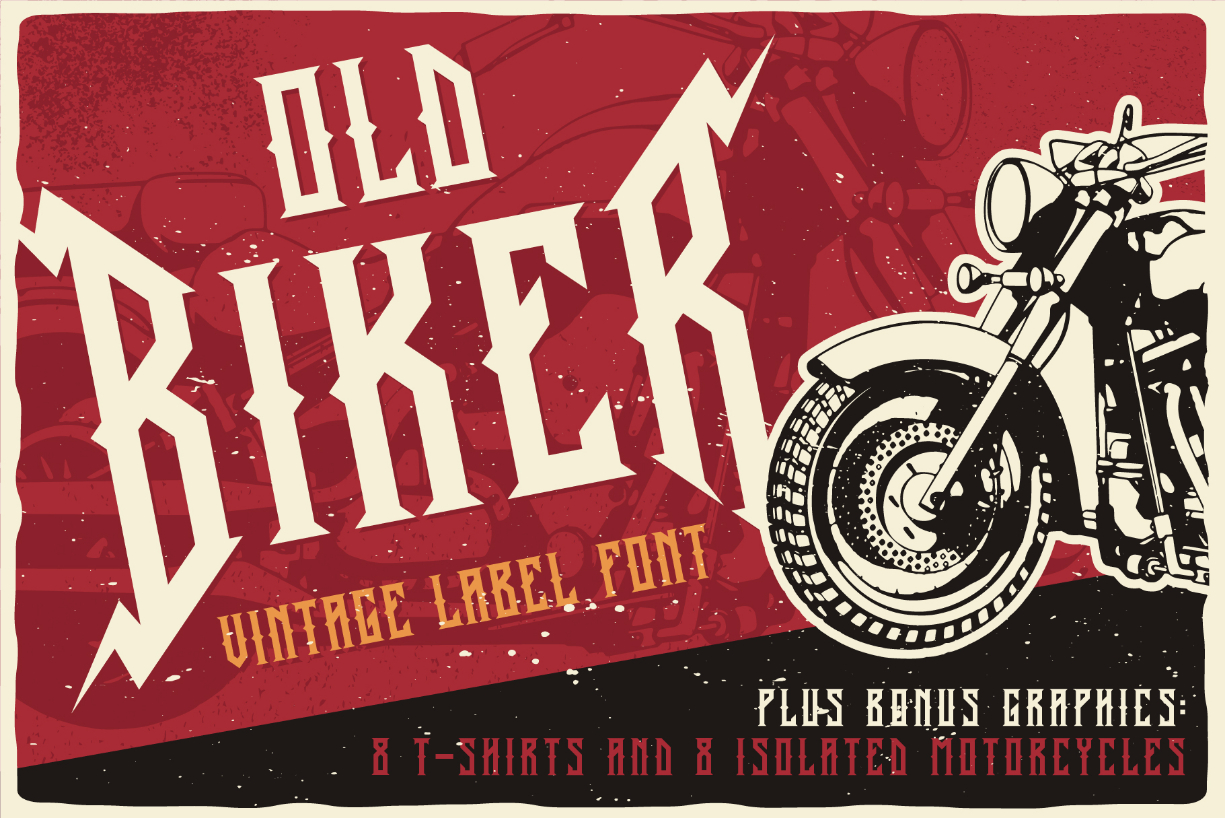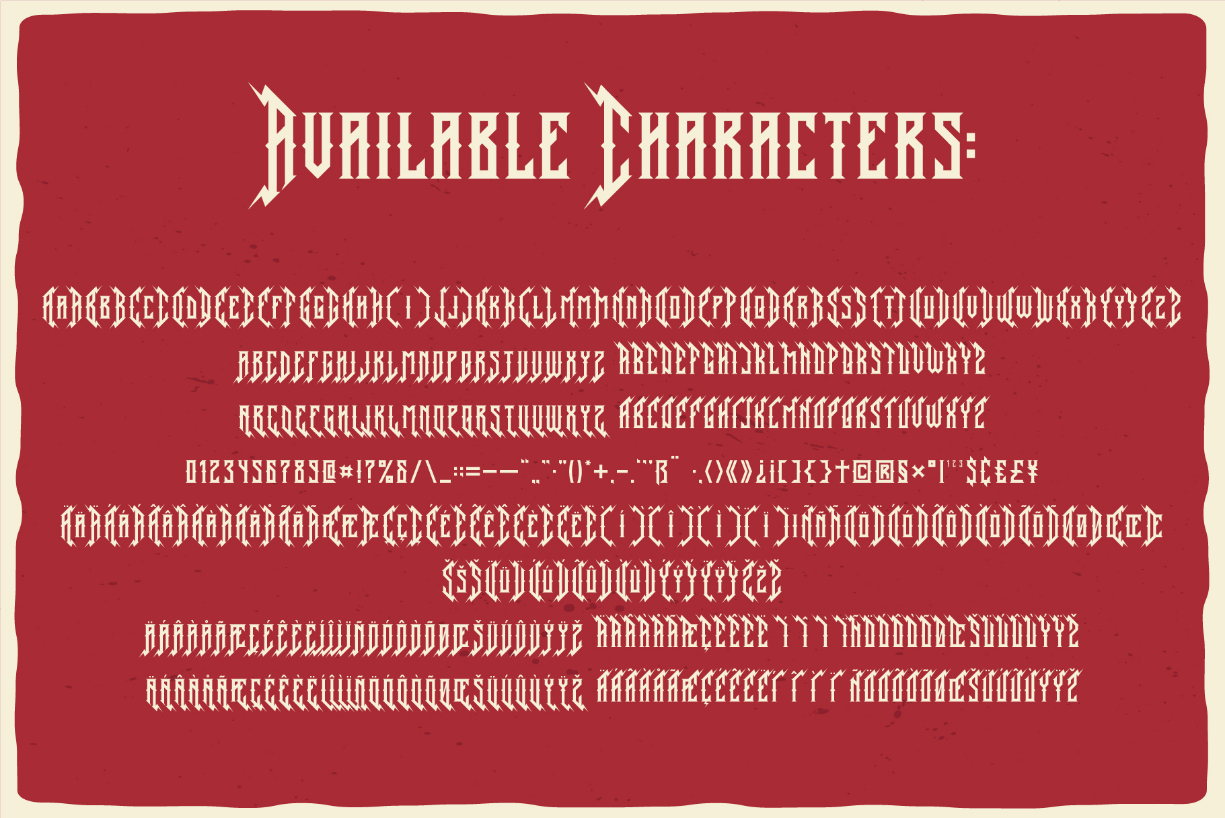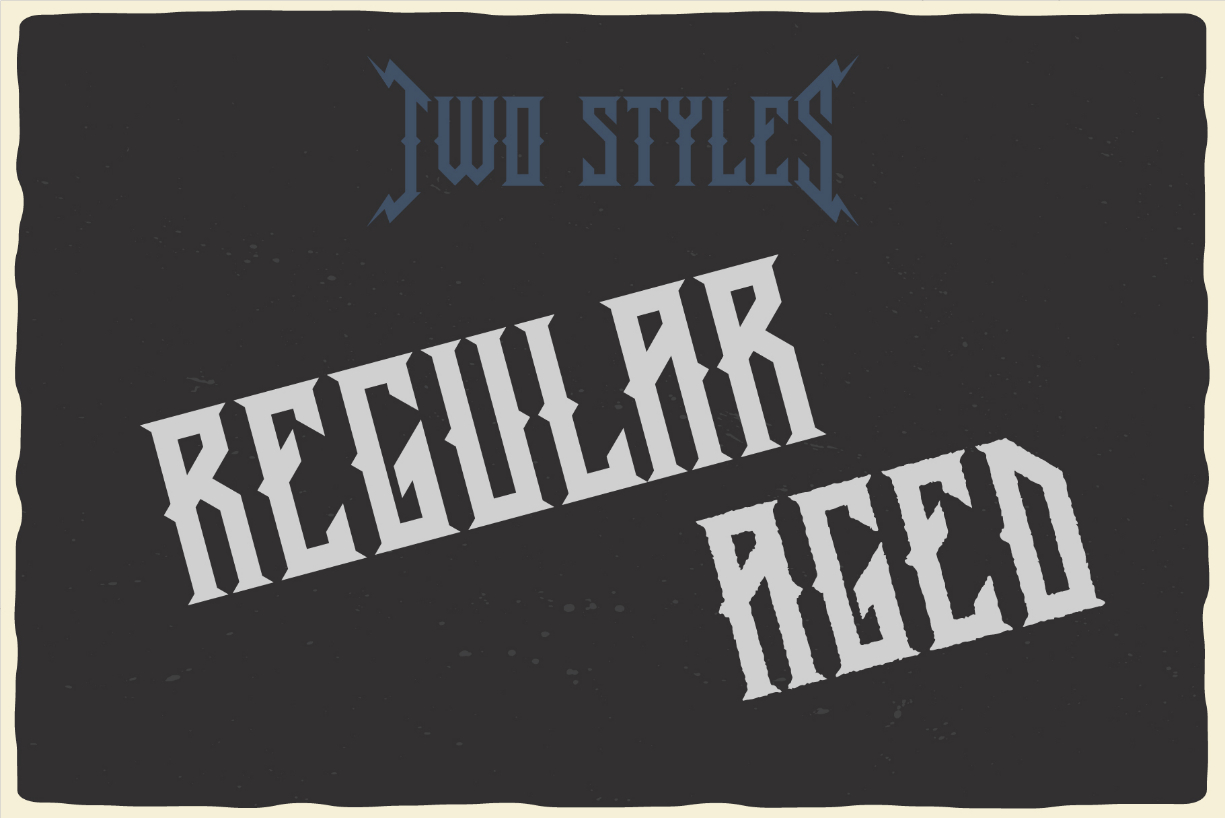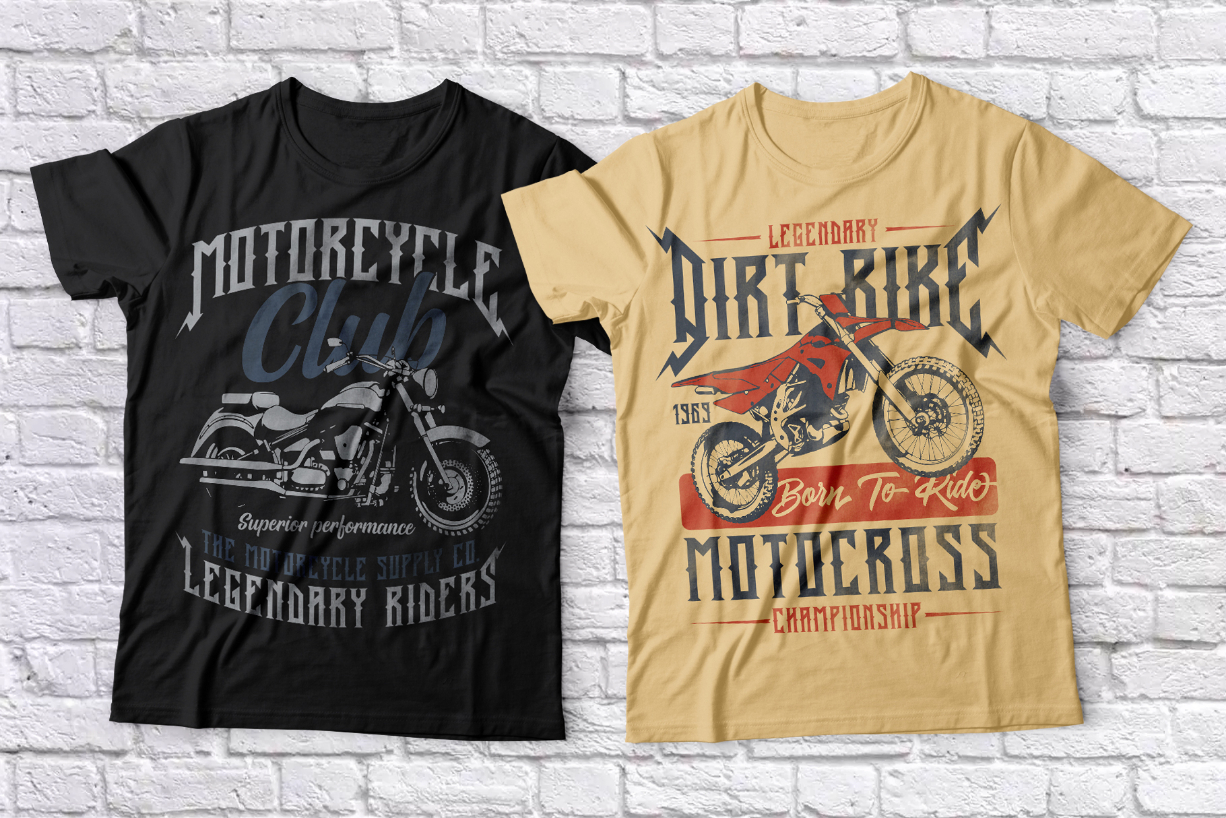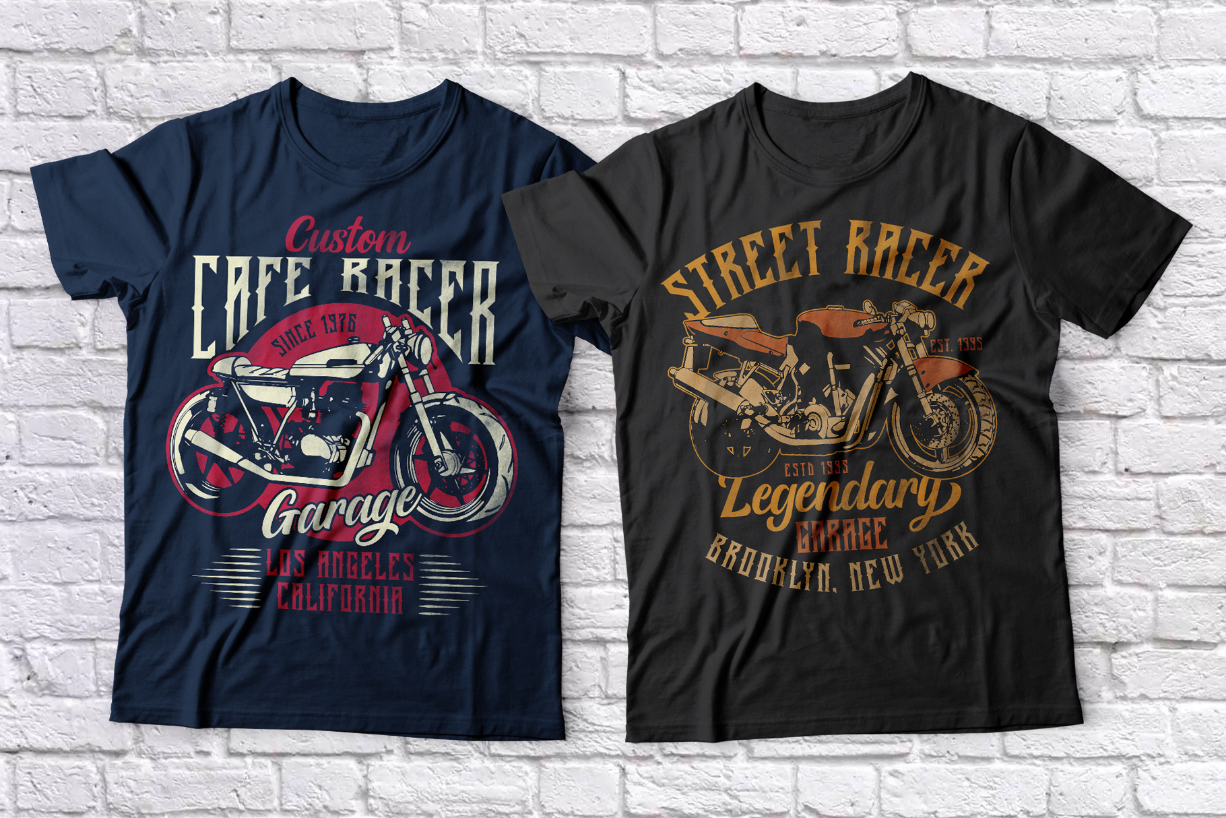
About Old Biker Font
Old Biker is a bold and authentic blackletter font. Dramatic and featuring an urban style, this font will be a top choice for each of your casual designs.